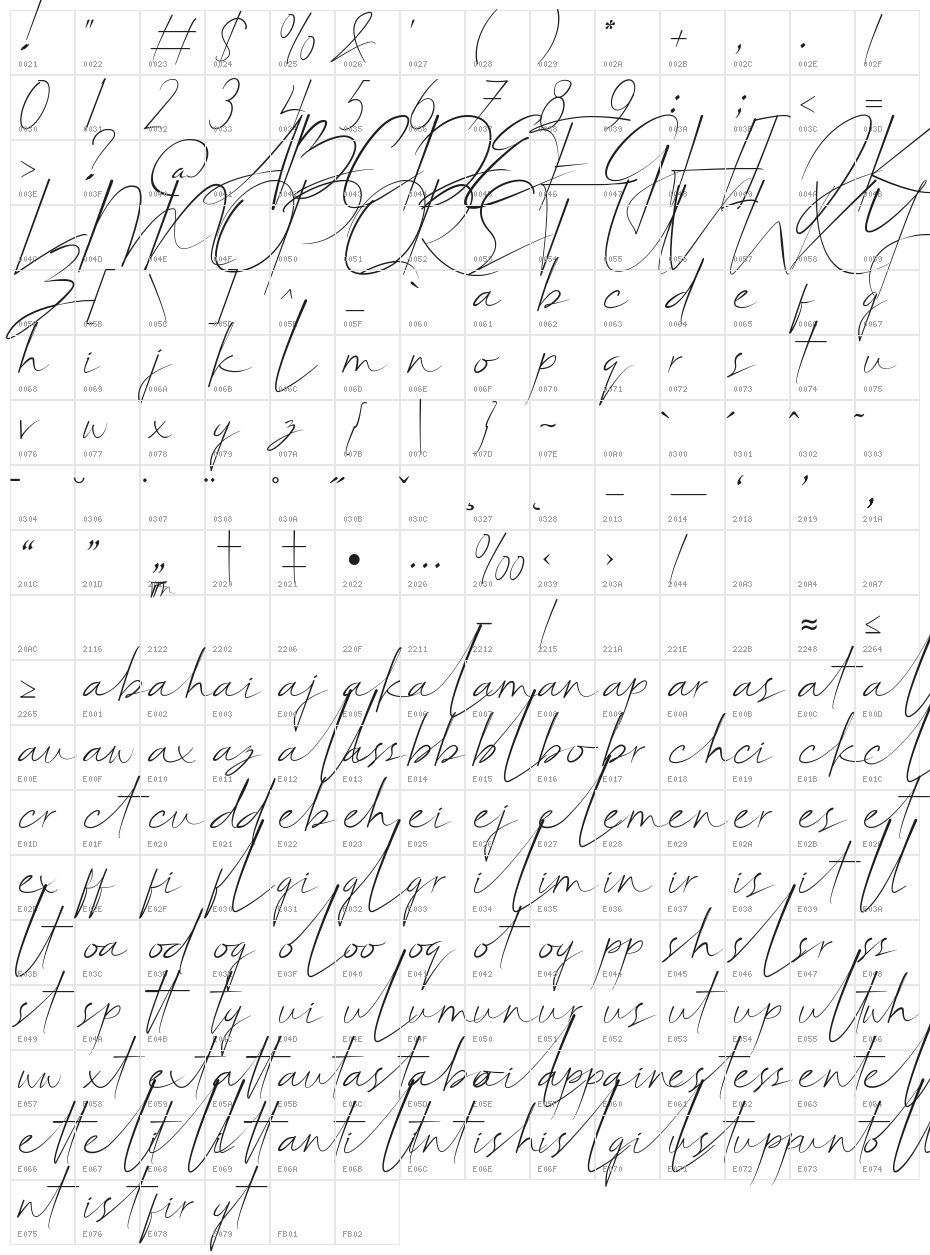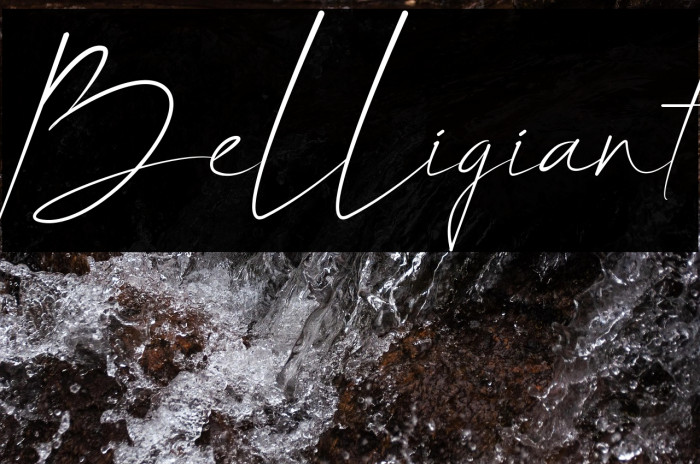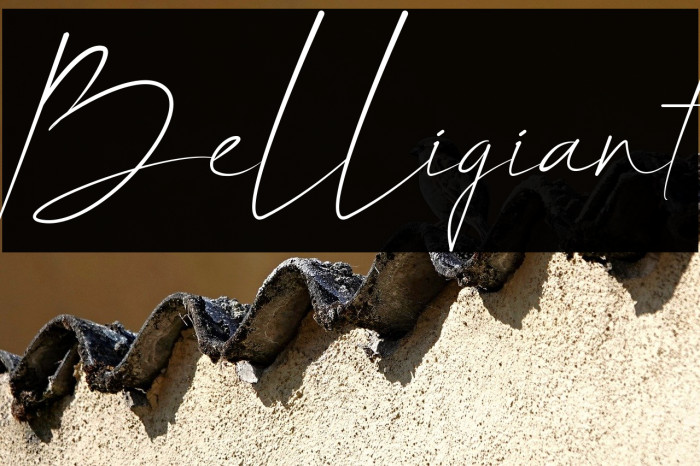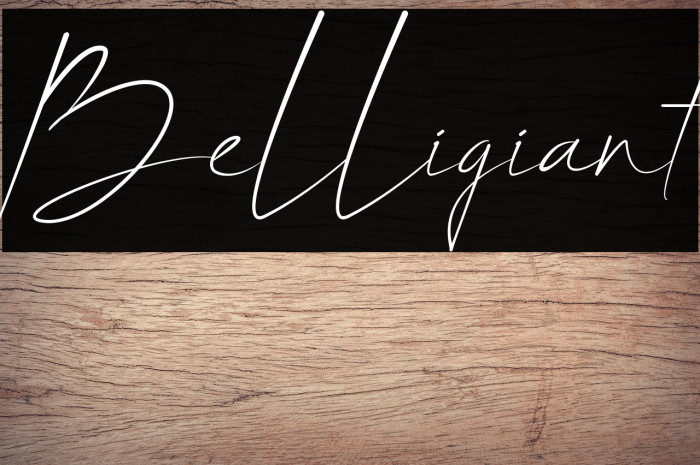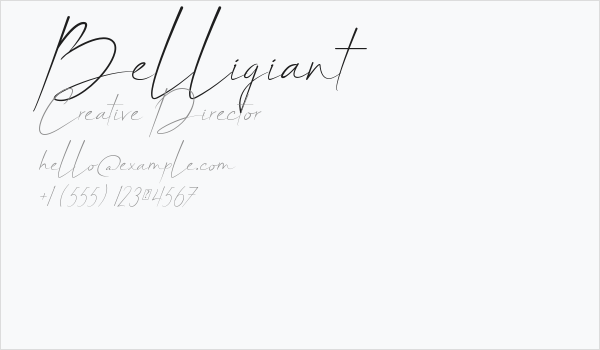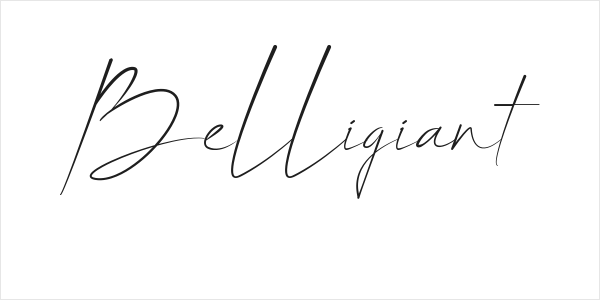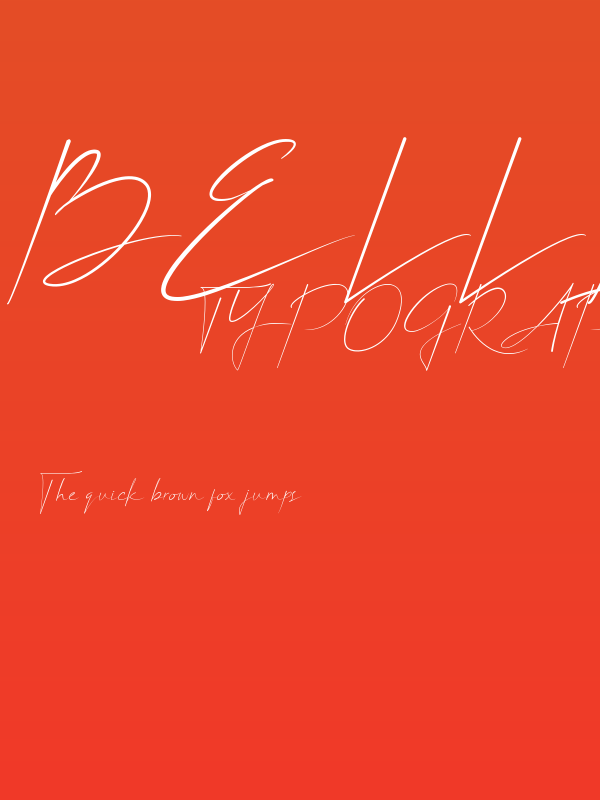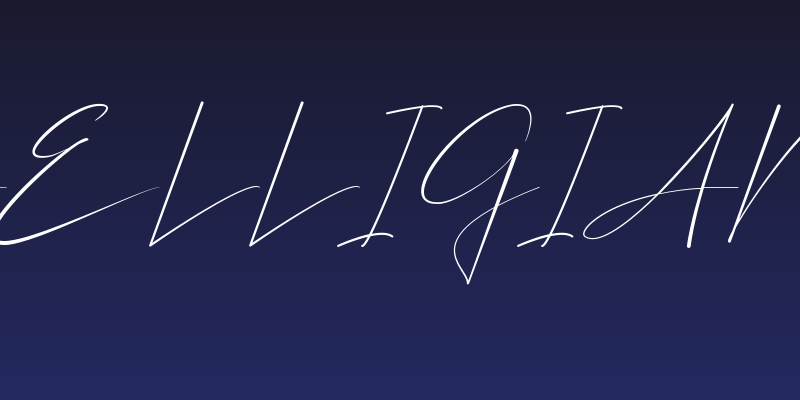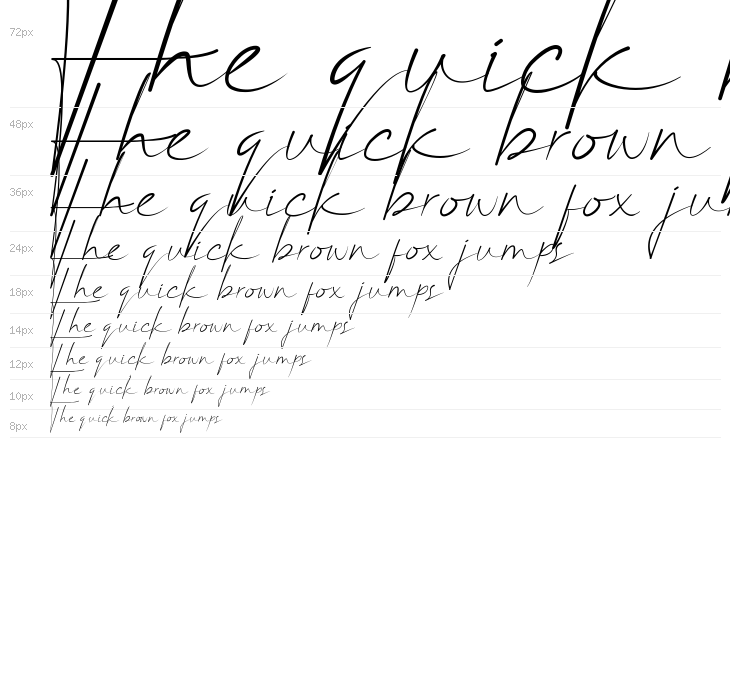
Belligiant Font
Belligiant Description
This font exudes a sense of elegance and fluidity, characterized by its script style that mimics natural handwriting. The letters are connected, creating a seamless flow that is both sophisticated and approachable. The uppercase letters are slightly more structured, providing a balanced contrast to the more freeform lowercase letters. The numerals and special characters maintain the same graceful style, ensuring consistency throughout. The thin strokes and gentle curves give it a delicate appearance, making it ideal for projects that require a personal touch.
| Proposed Projects | Ideal for wedding invitations, personal branding, greeting cards, and elegant stationery. |